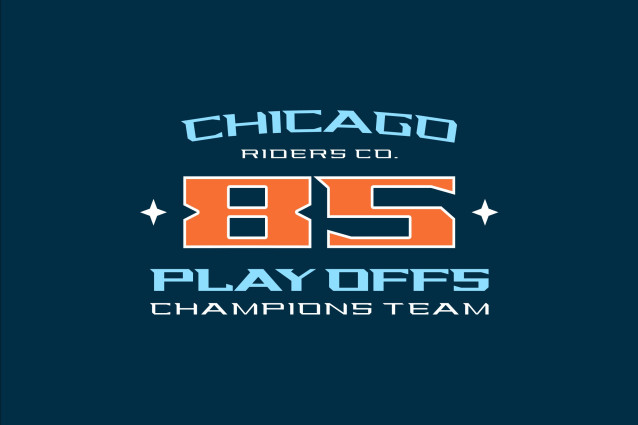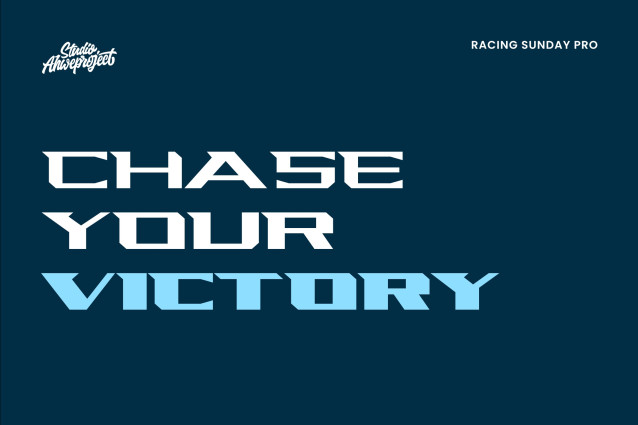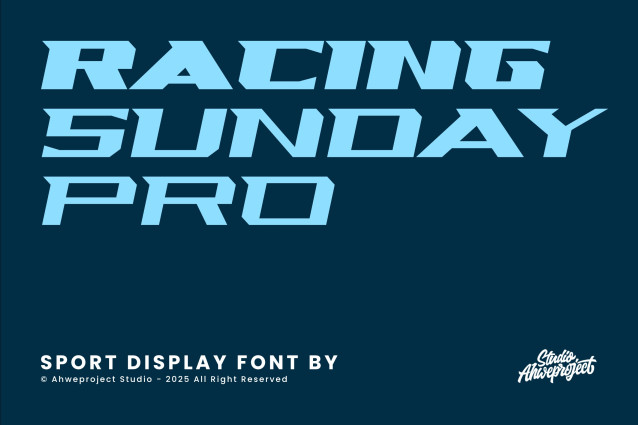
Racing Sunday Pro Font
Racing Sunday Pro Font is a bold sport display font with a fast, angular style inspired by race cars and Sunday night matches. Its sharp diagonals and strong all–caps letters instantly give your design a sense of speed, power, and competition, perfect for eye-catching headlines and logos.